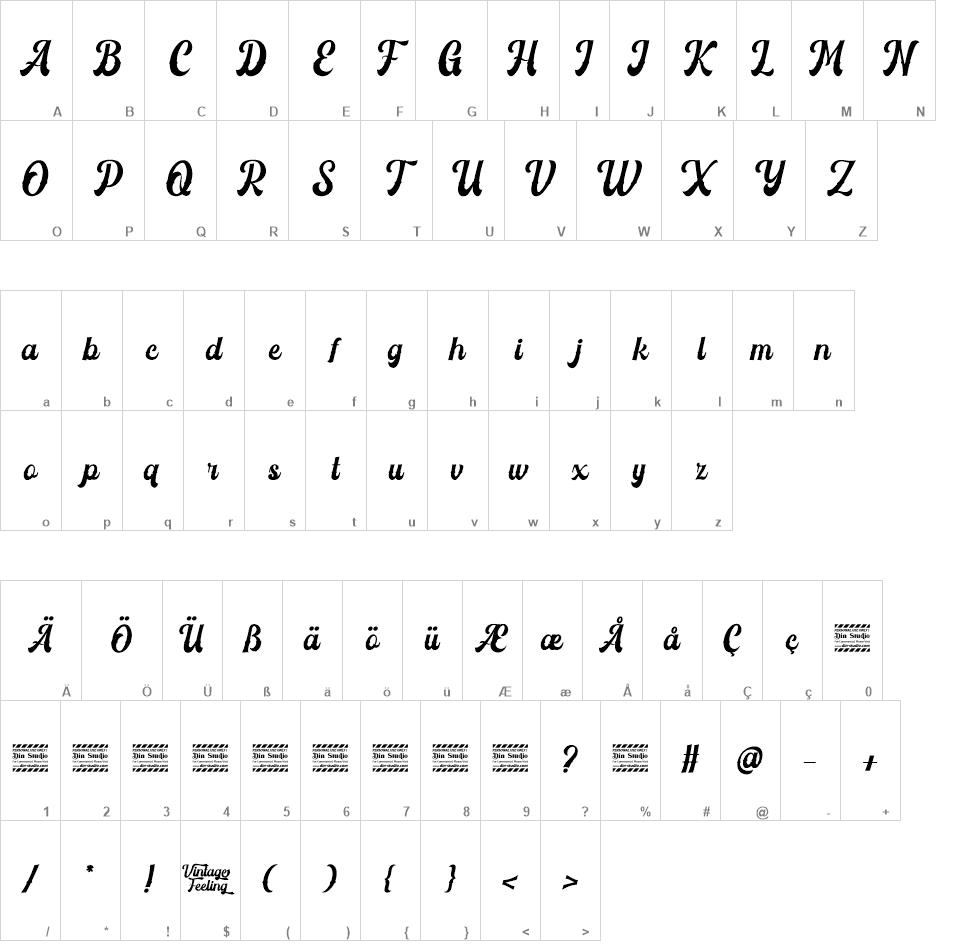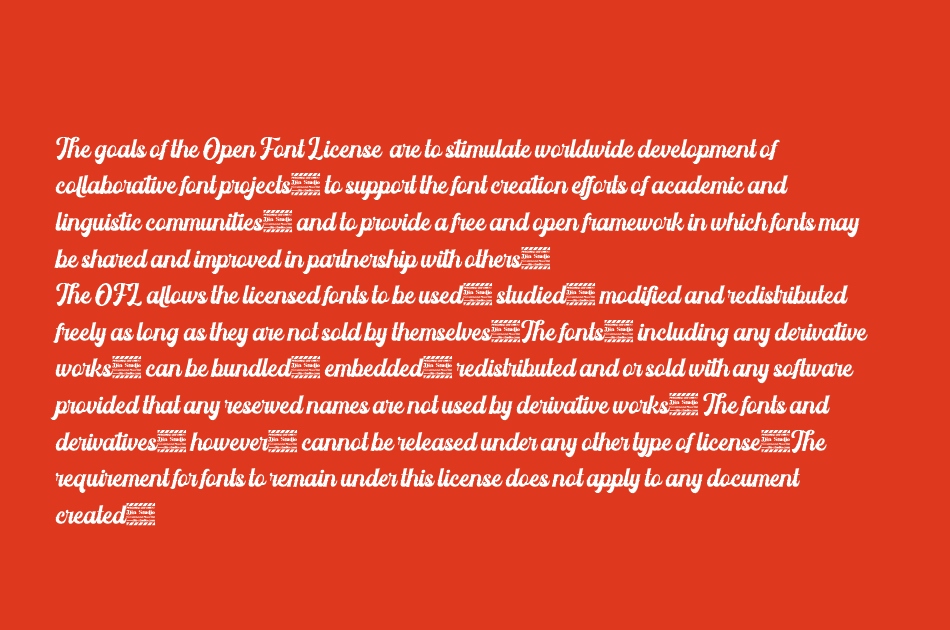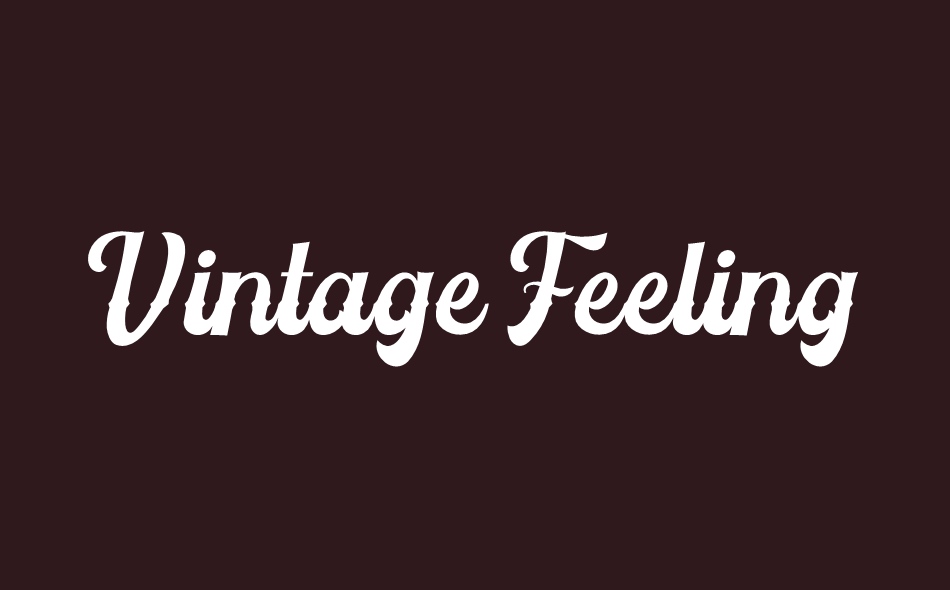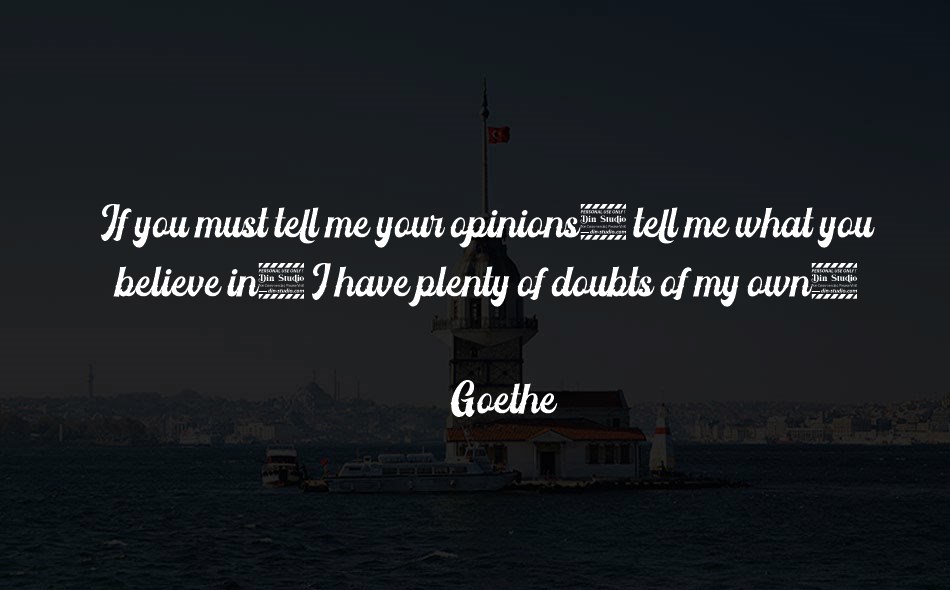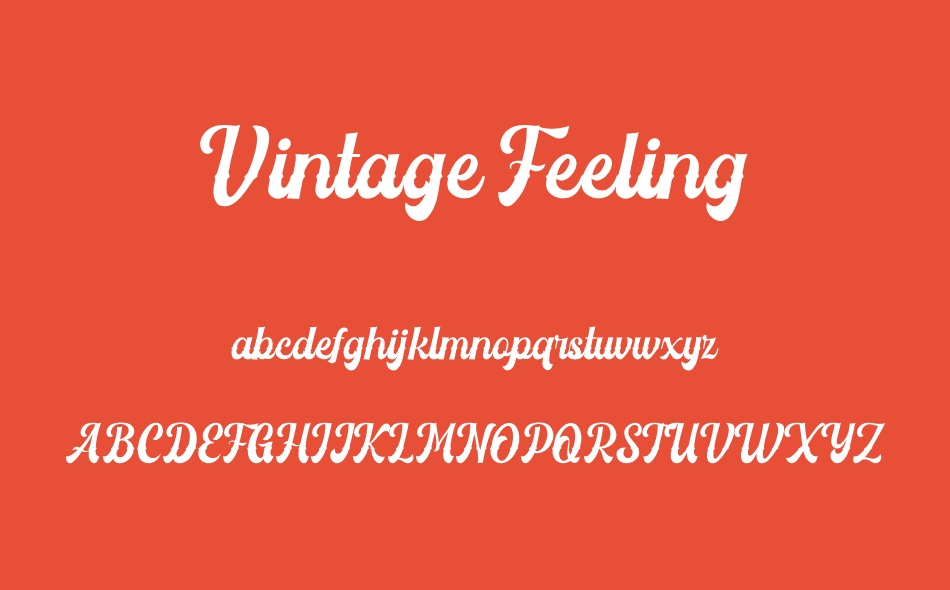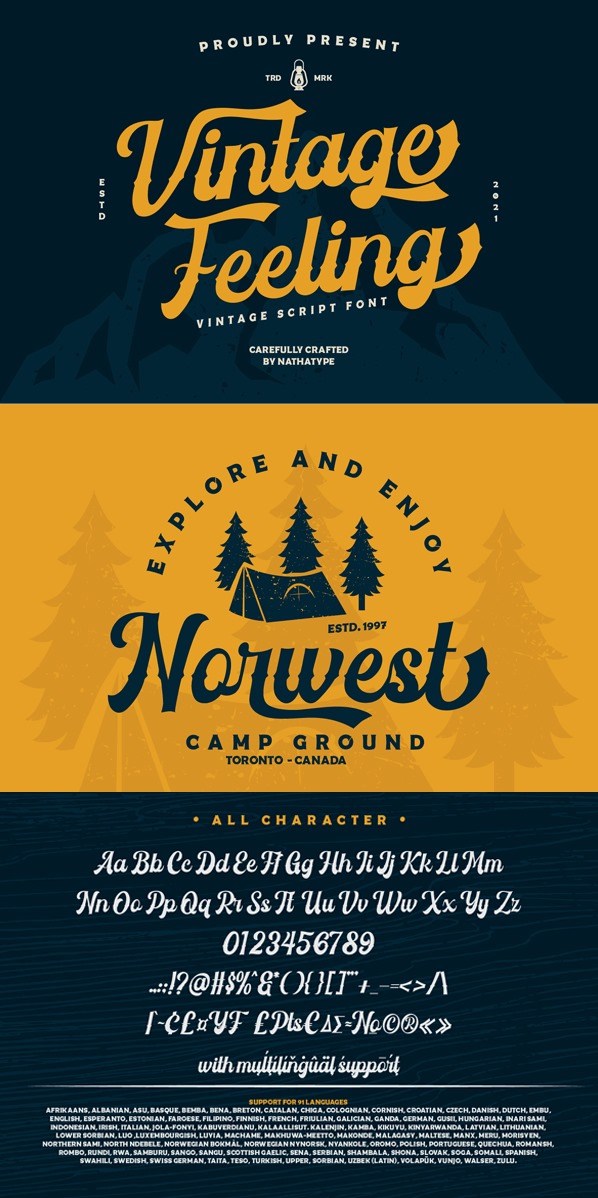
Vintage Feeling font
Is a script font beautifully handcrafted to make your guests sing and elevate your projects! Every stroke, and curve was created to entice happiness and elegance. This typeface with artistic style looks very interesting for loads of different projects and promotions.